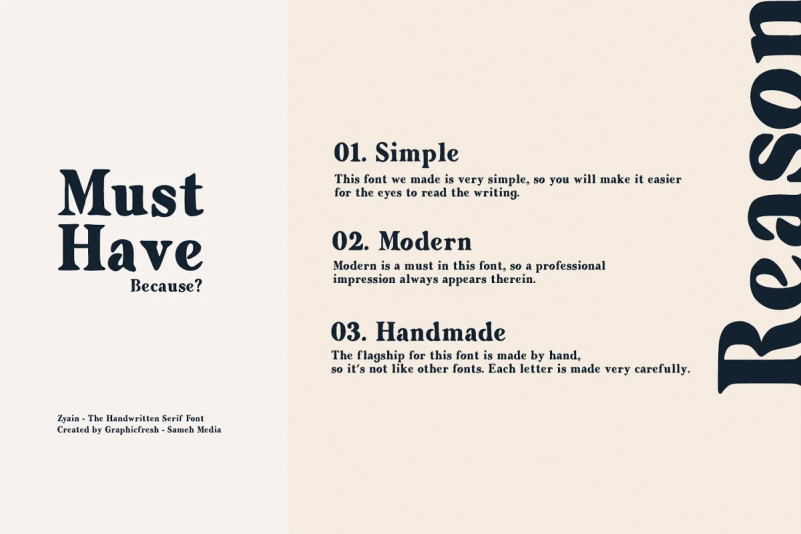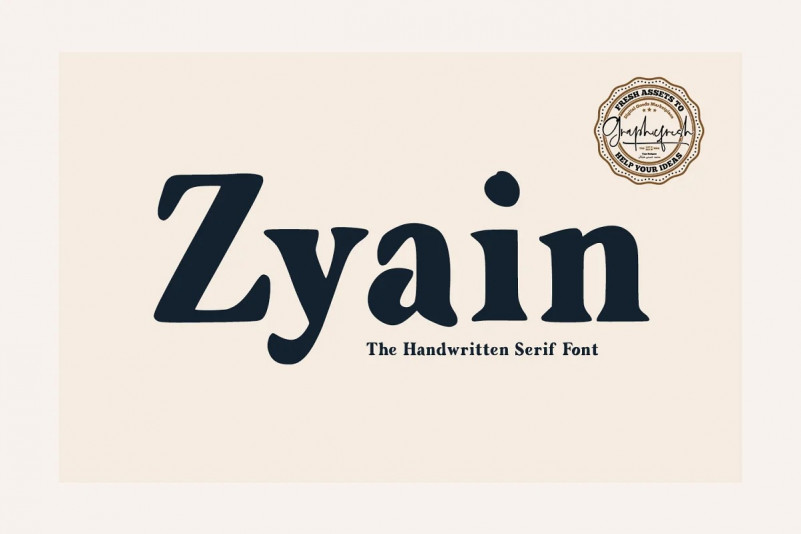
Zyain Serif Font
This is a vintage and elegant bold serif typeface. Made from font designer named Graphicfresh. It comes with an elegant, cute and feminine style which is perfect to make any design stand out! This font is perfect for branding, wedding invites, magazines, mugs, business cards, quotes, posters, and more.